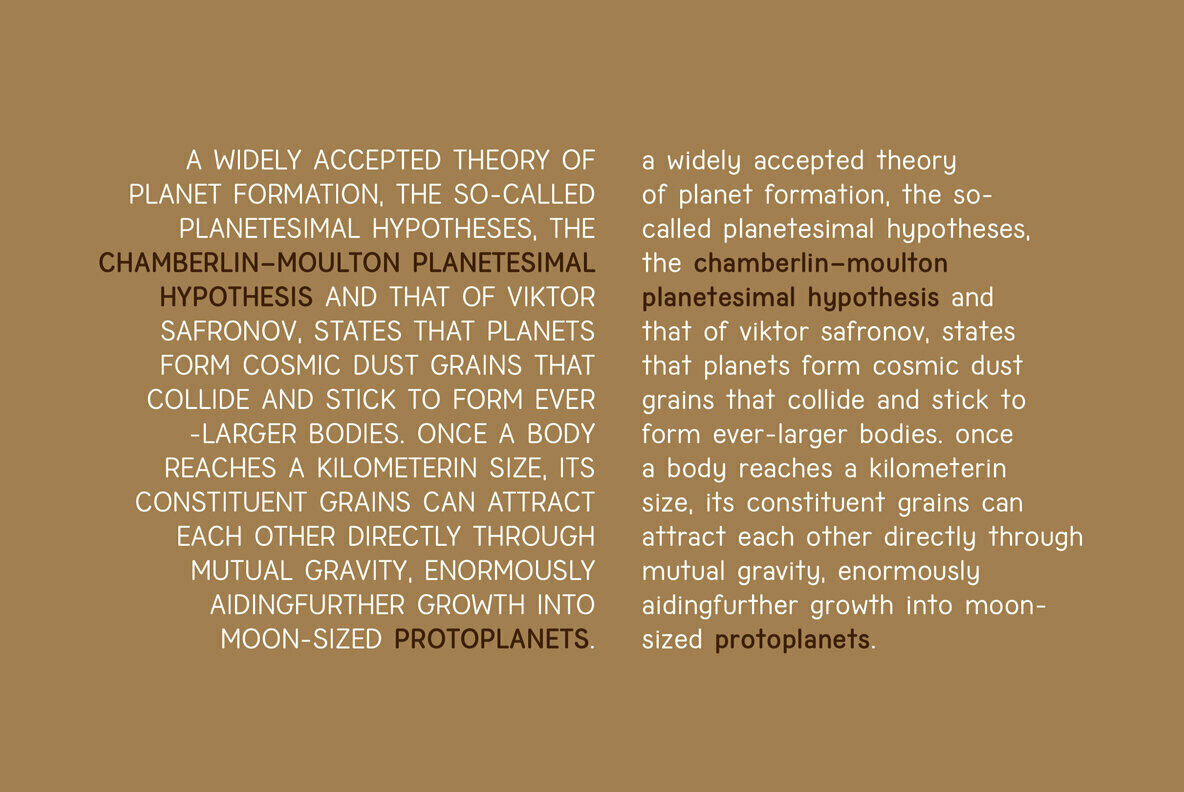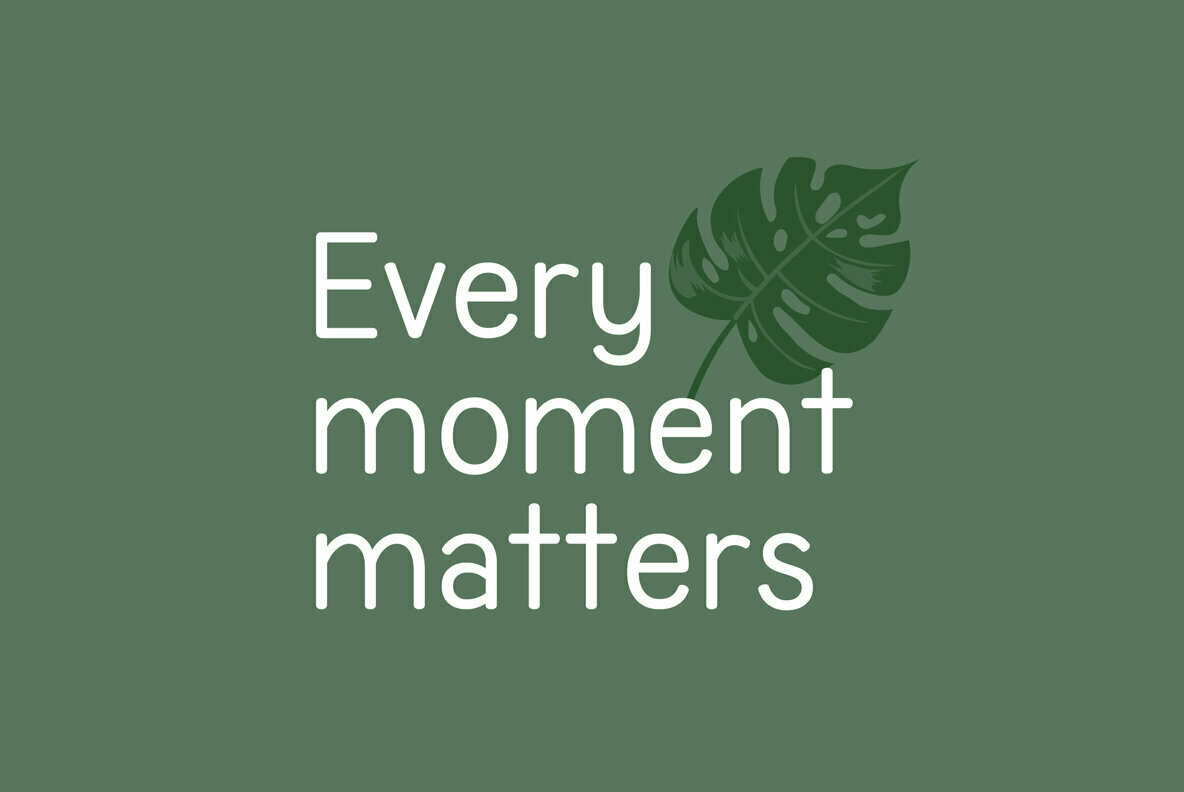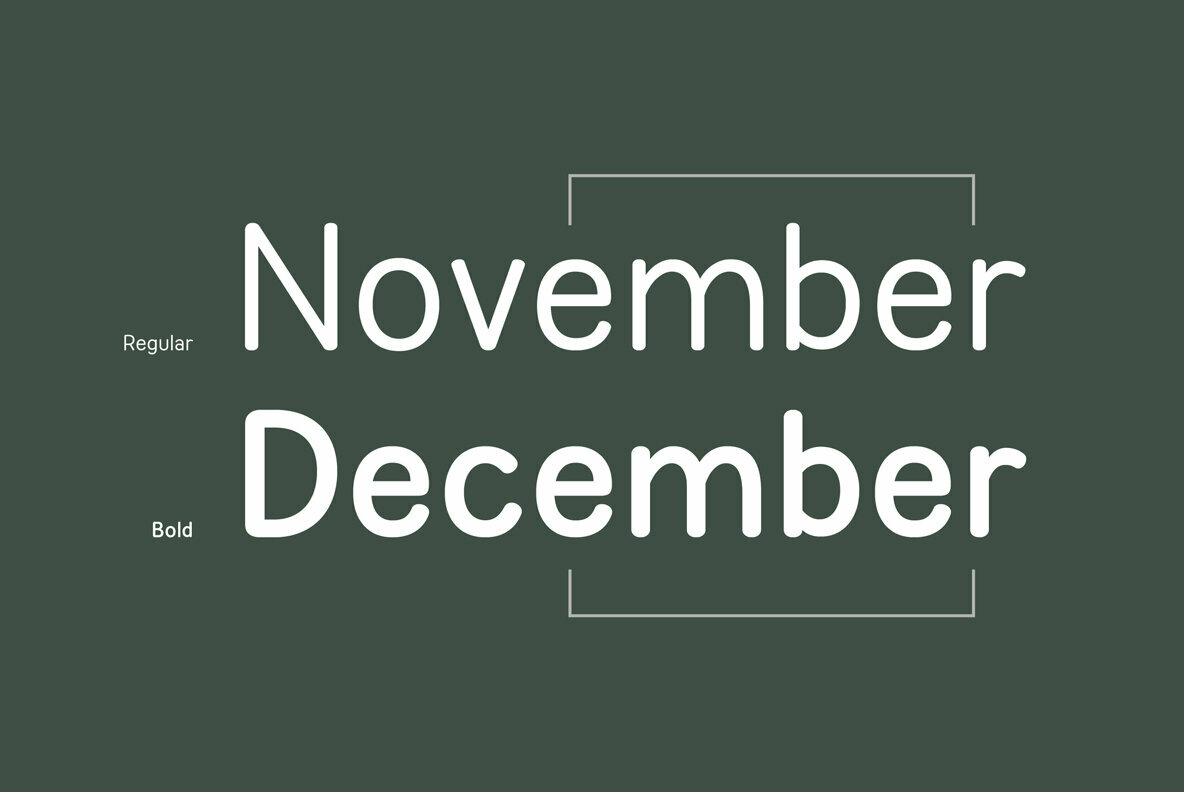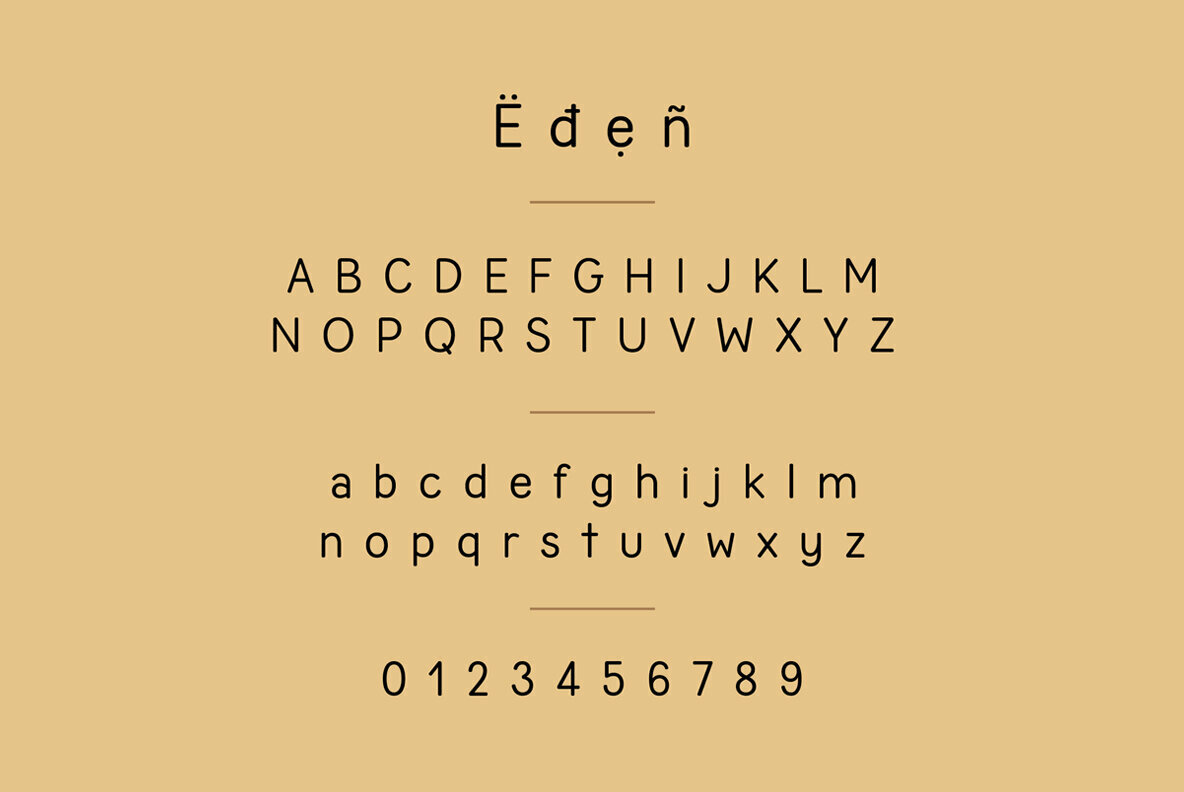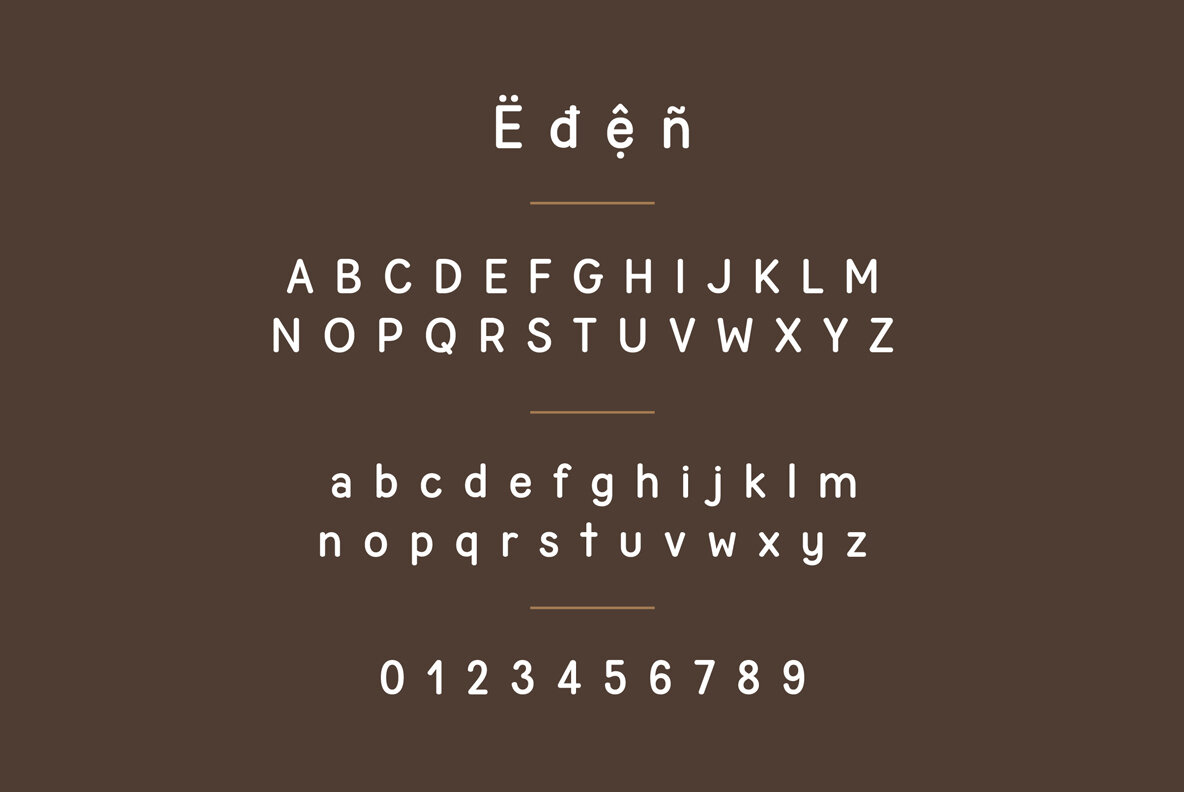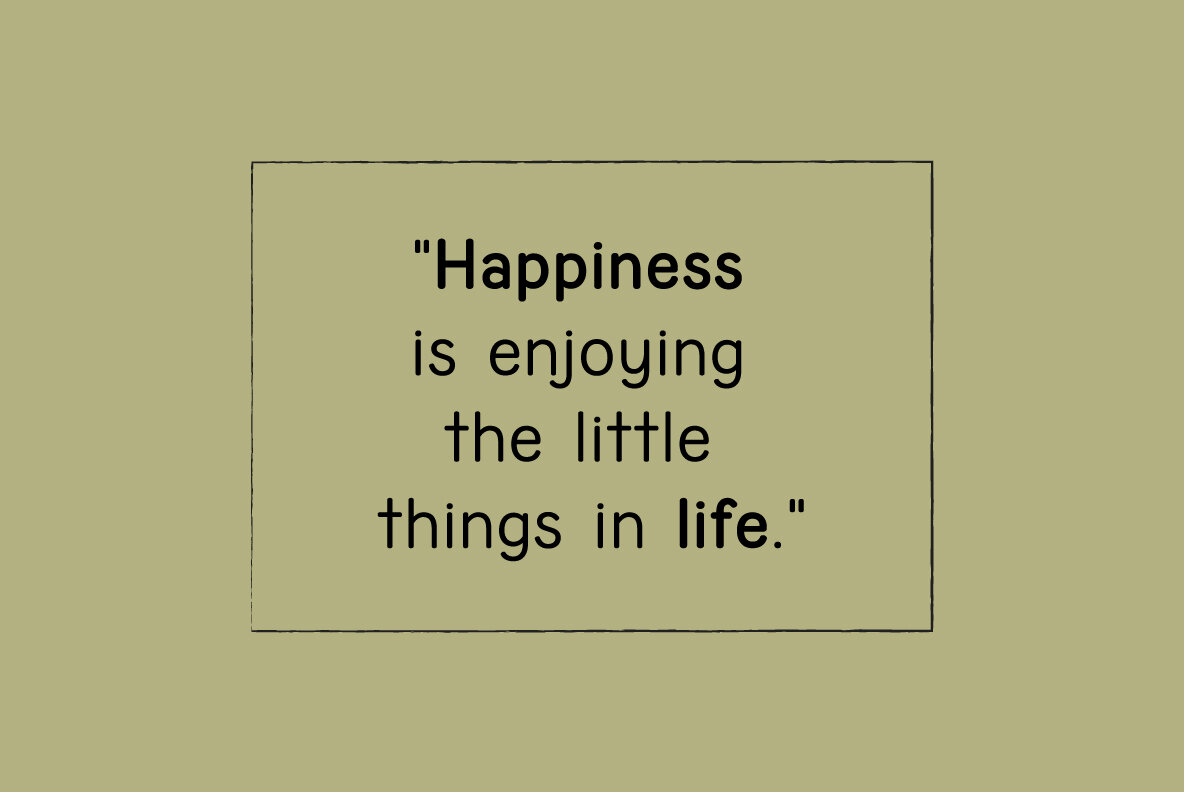
Eden Font
Eden Regular
Eden Bold
Eden is a sans-serif font that has been meticulously designed. It consists of 2 weights: Regular and Bold. Eden font is suitable for use in any situation because it is neat, cute and easy to read.